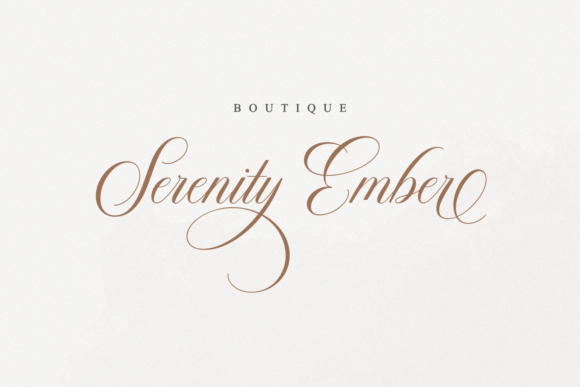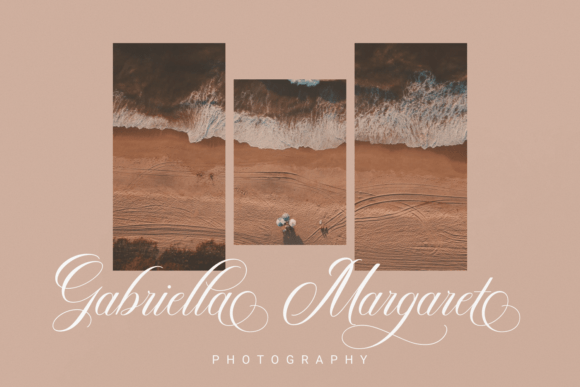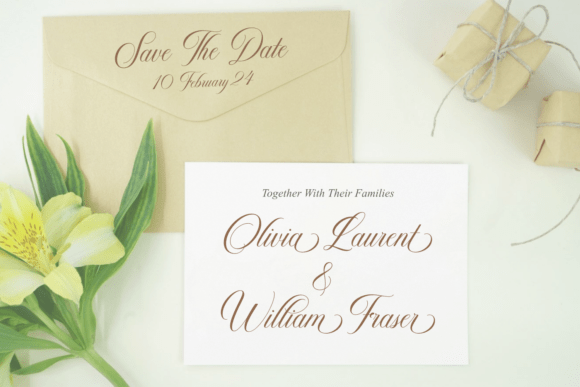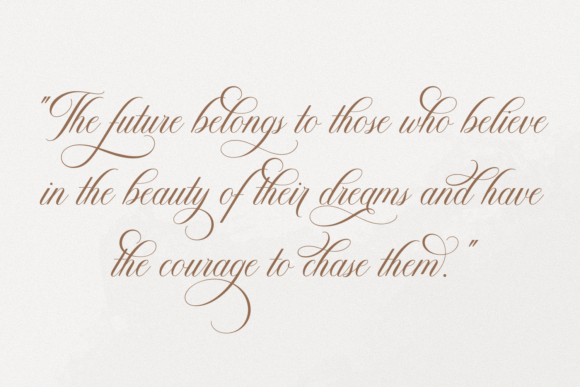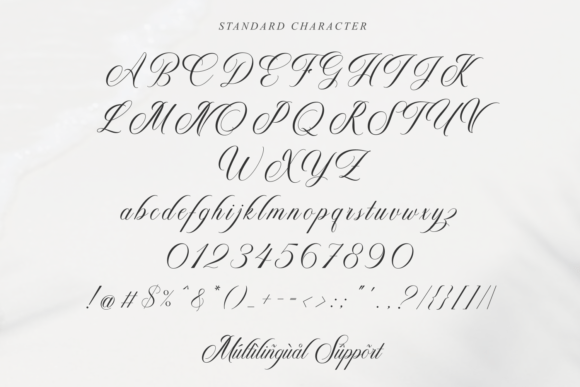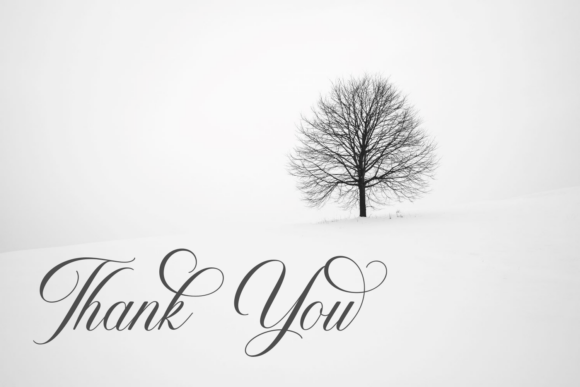
Bathingker Font: Elevate Your Designs with Classic Sophistication
In the world of design, typography plays a crucial role in conveying the tone and personality of a brand or project. When it comes to creating a luxurious and refined impression, the right font can make all the difference. Introducing Bathingker, an elegant font designed to bring a touch of classic sophistication to any design. With its smooth lines and balanced proportions, Bathingker is the perfect choice for designers and crafters looking to elevate their work.
The Characteristics of Bathingker Font
Bathingker is more than just a font – it’s a statement piece. Its smooth lines and balanced proportions create a sense of harmony and elegance, making it perfect for designs that require a touch of sophistication. Whether you’re working on a logo, label, branding, invitation, website, or quote, Bathingker is sure to make your design stand out.
One of the key features of Bathingker is its versatility. This font can be used in a variety of design applications, from print to digital. Its classic and timeless look makes it suitable for a wide range of projects, including:
- Invitations and event planning
- Packaging and labels
- Quotes and typography art
The Benefits of Using Bathingker Font
So, what sets Bathingker apart from other fonts? Here are just a few benefits of using Bathingker in your designs:
- Luxurious and refined impression: Bathingker’s smooth lines and balanced proportions create a sense of luxury and sophistication, making it perfect for high-end designs.
- PUA encoded for easy access: Bathingker is PUA encoded, which means you can access all glyphs and swashes with ease. This makes it simple to customize your designs and add unique touches.
- Versatile and adaptable: Bathingker can be used in a variety of design applications, from print to digital.
- Timeless and classic look: Bathingker’s classic look makes it suitable for a wide range of projects, from modern designs to vintage-inspired creations.
How to Use Bathingker Font in Your Designs
- Pair it with complementary fonts: Bathingker pairs well with a variety of fonts, including sans-serif and script fonts.
- Experiment with font sizes and styles: Bathingker looks great in a variety of font sizes and styles, from bold and large to delicate and small.
- Add swashes and glyphs: With its PUA encoding, you can easily access Bathingker’s swashes and glyphs to add unique touches to your designs.
In conclusion, Bathingker is an elegant font that can elevate any design with its classic sophistication. With its smooth lines, balanced proportions, and PUA encoding, Bathingker is the perfect choice for designers and crafters looking to create luxurious and refined designs. Whether you’re working on a logo, label, branding, invitation, website, or quote, Bathingker is sure to make your design stand out. So why wait? Download Bathingker today and start creating stunning designs that exude elegance and sophistication.
Key Features of Bathingker Font
| Font Style | Elegant, Classic, Sophisticated |
| Font Encoding | PUA Encoded |
| Glyphs and Swashes | Accessible with ease |
| Design Applications | Logos, Labels, Branding, Invitations, Websites, Quotes, and more |